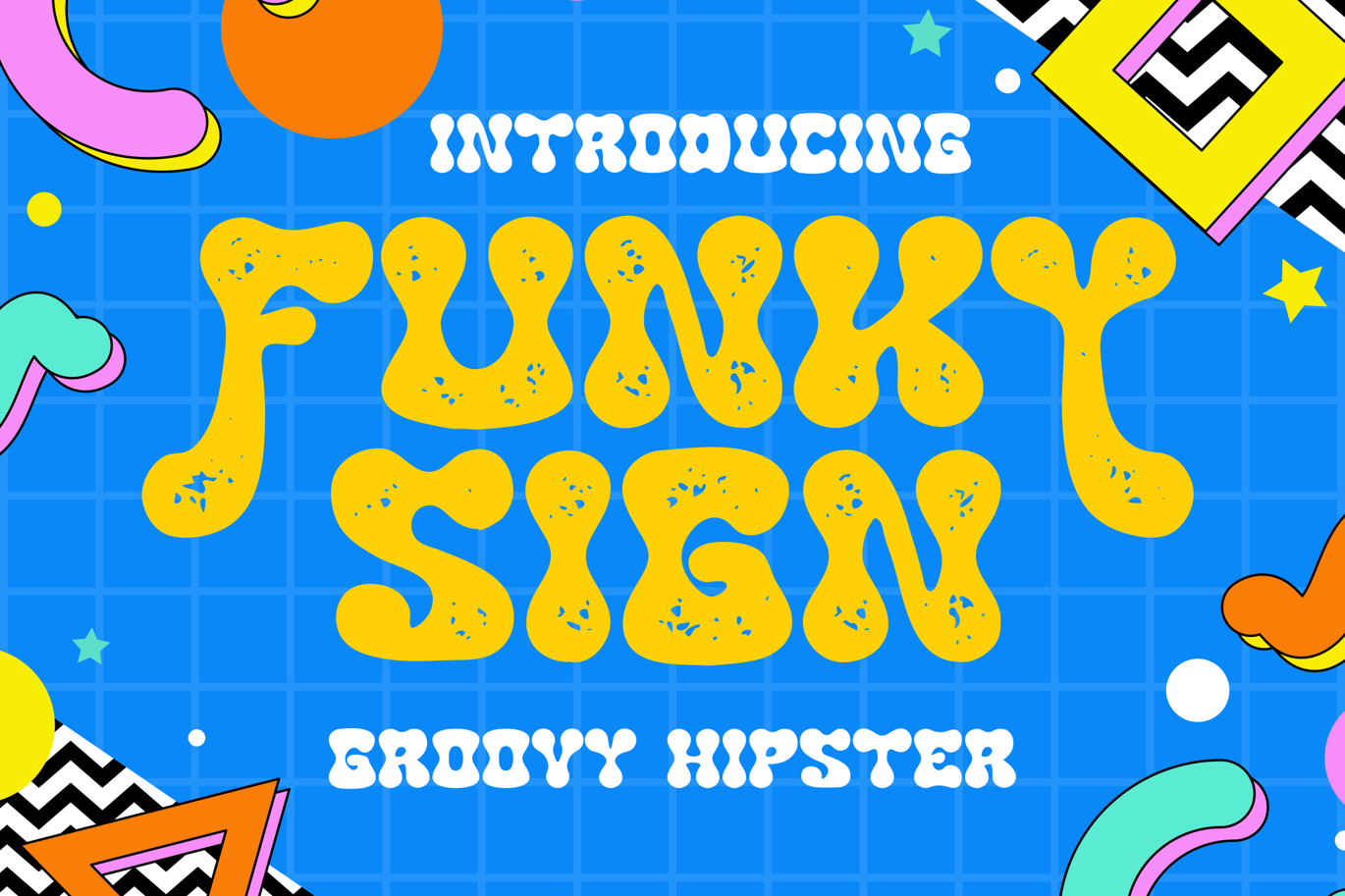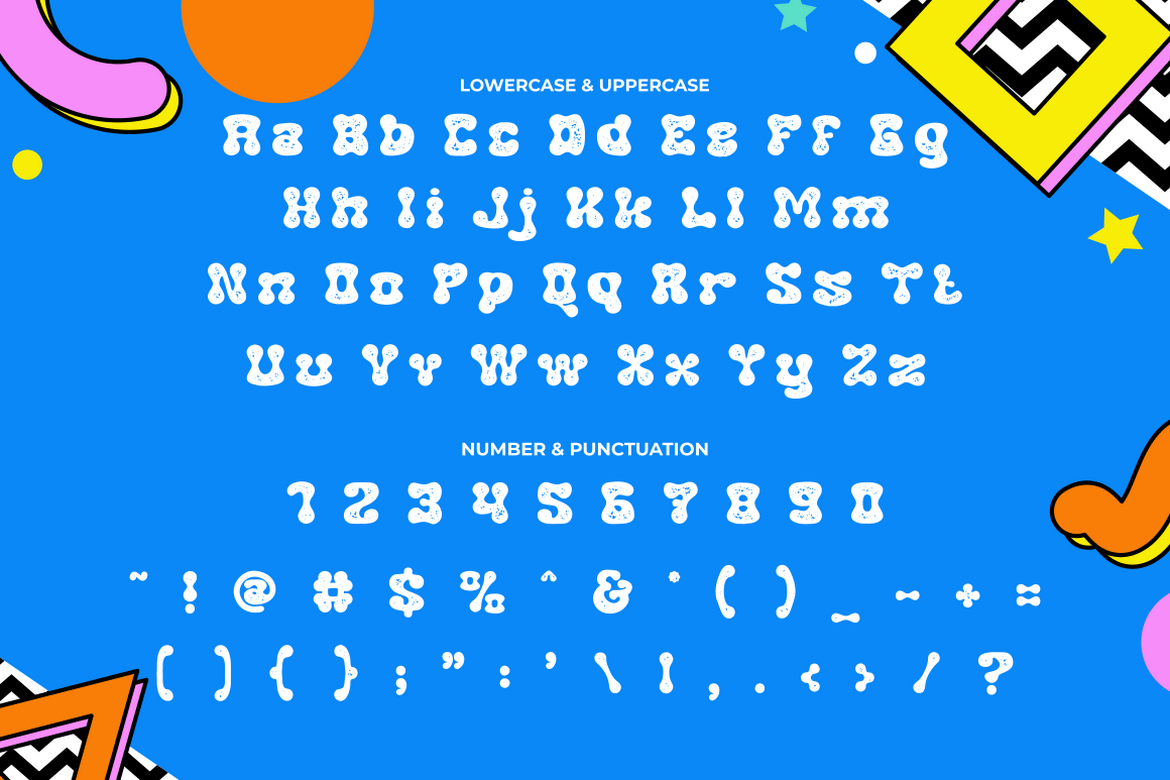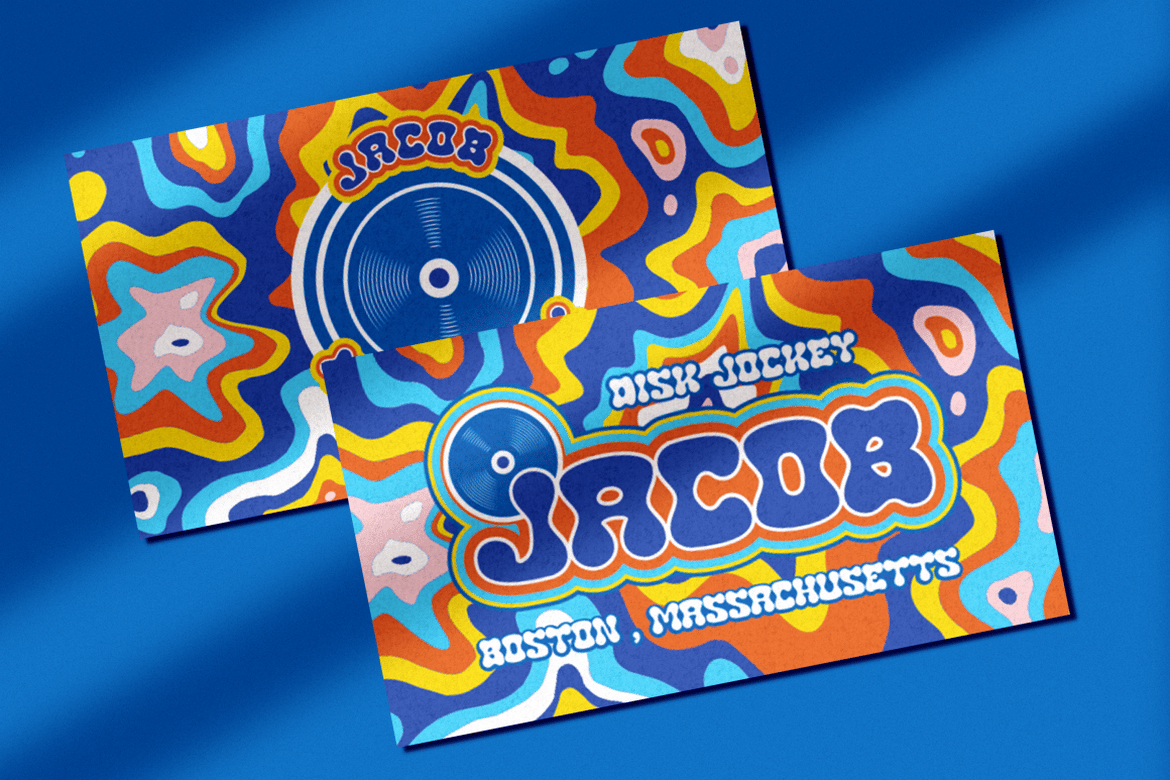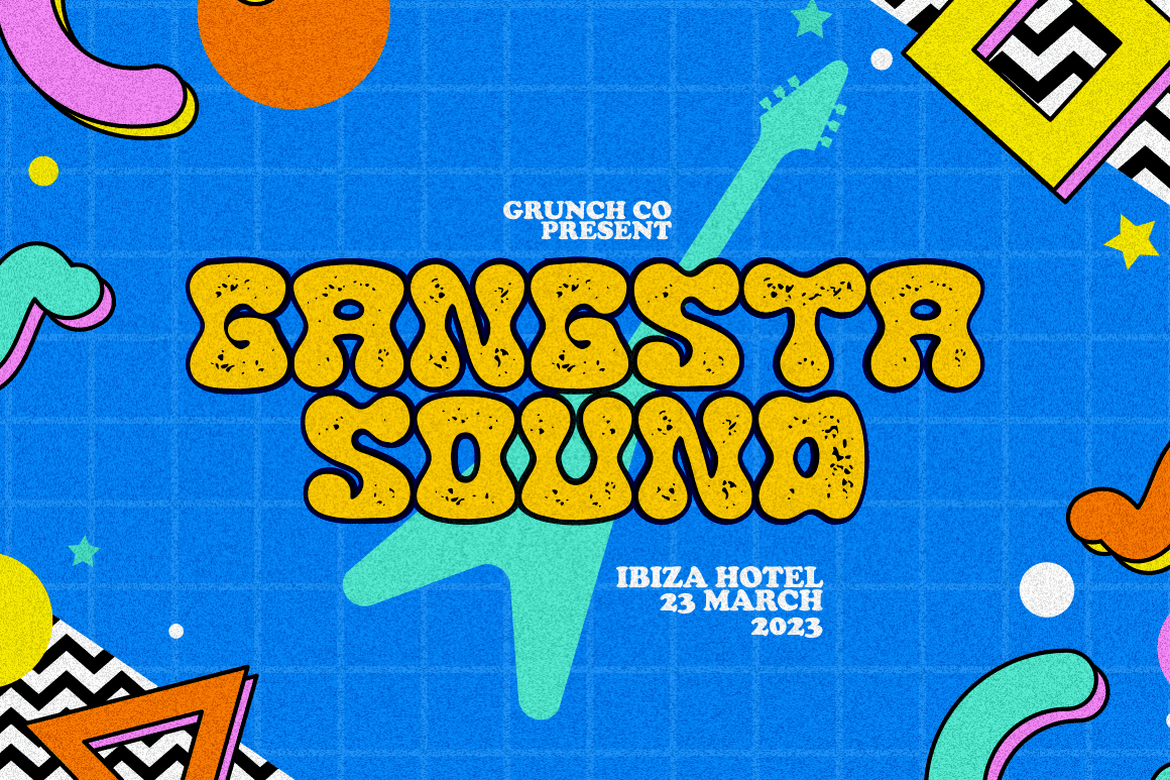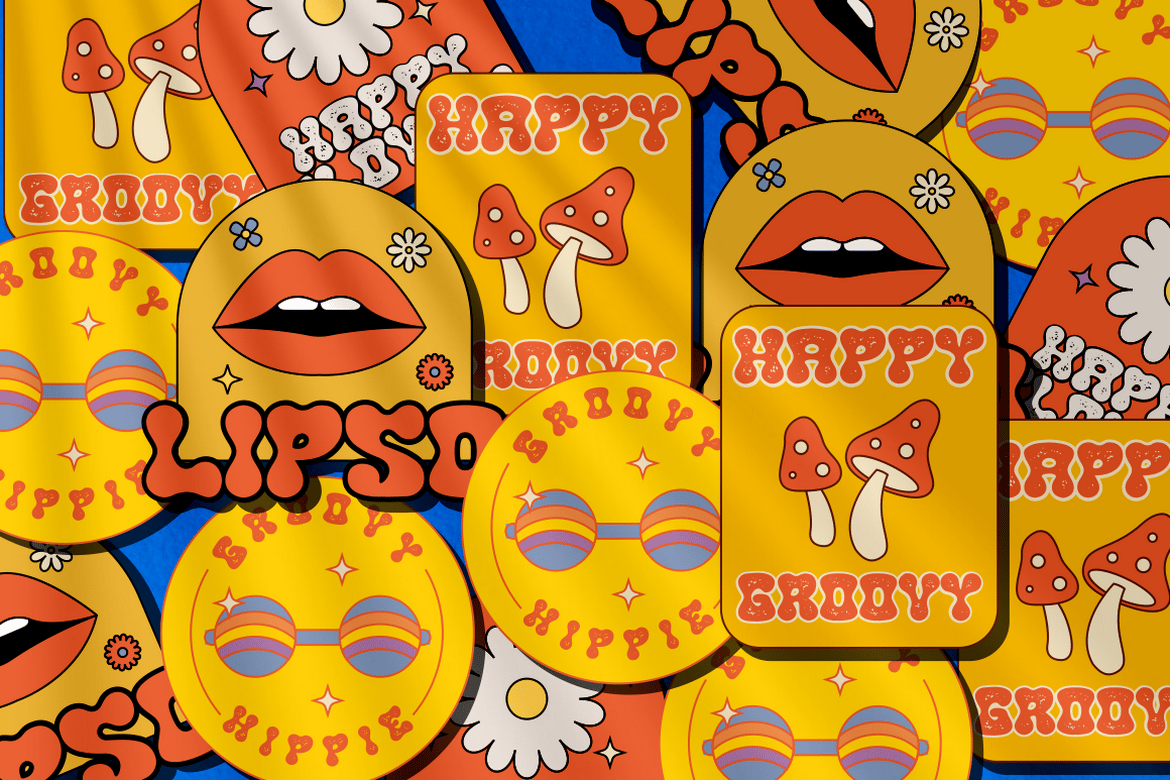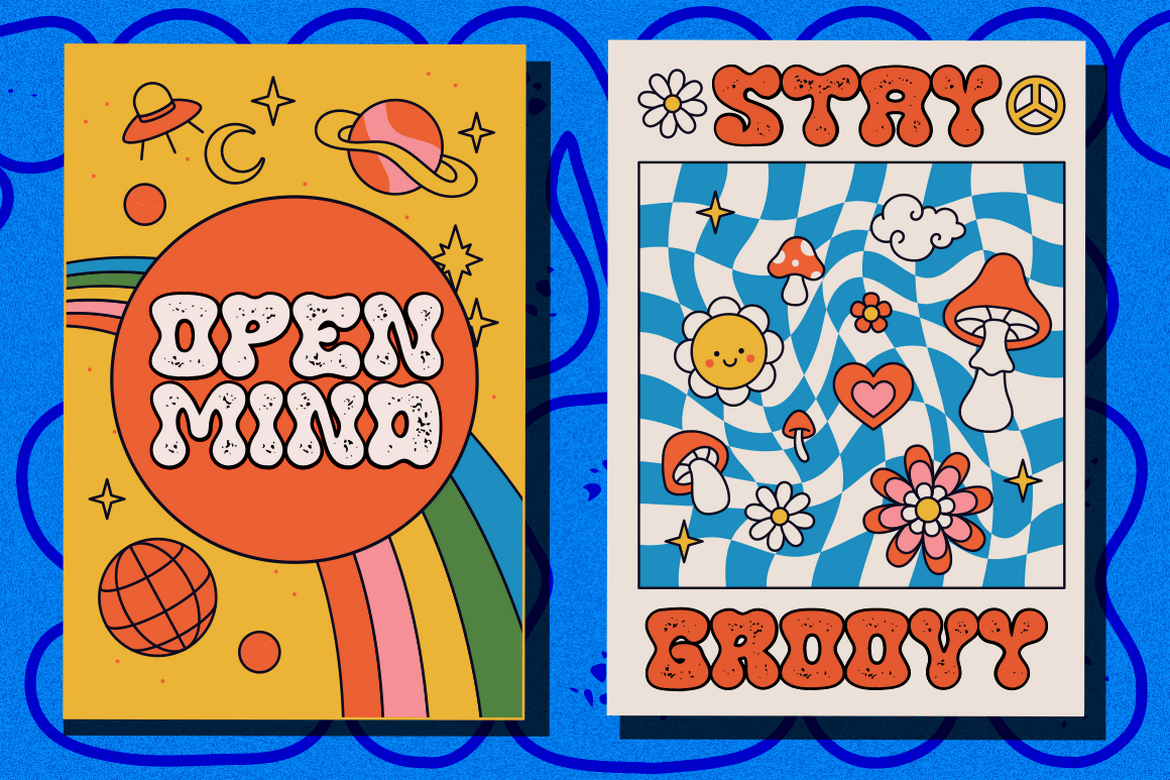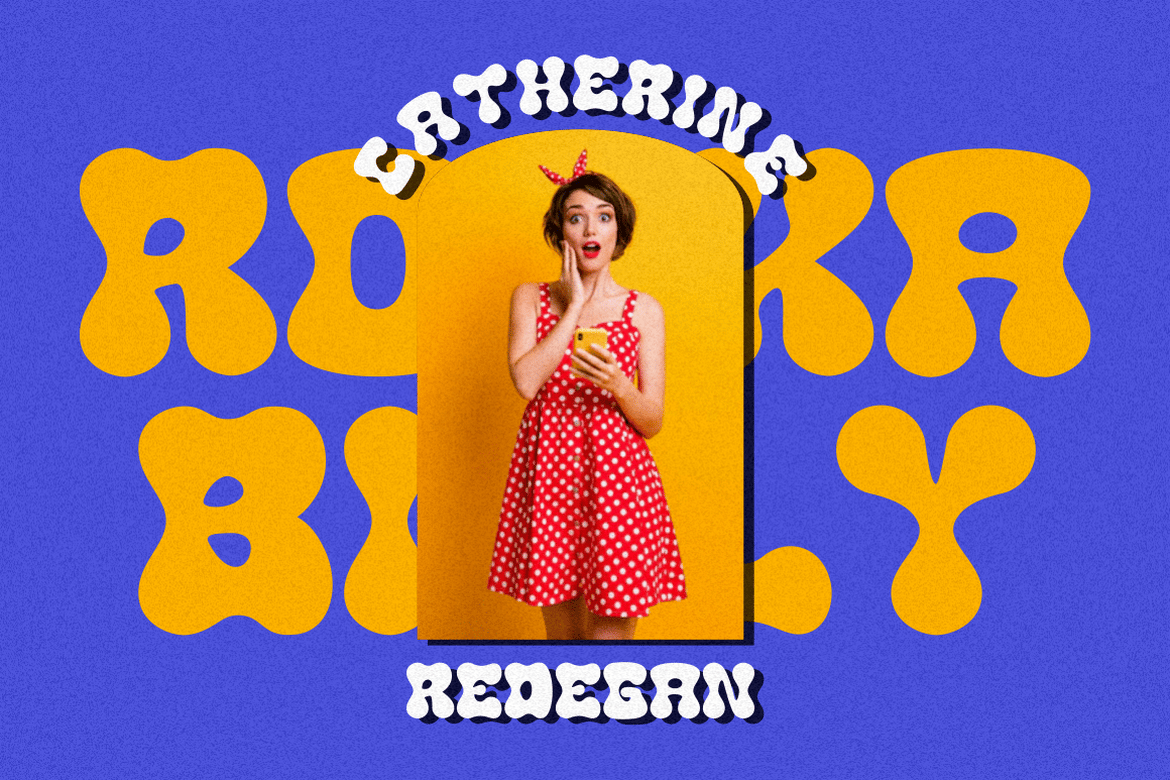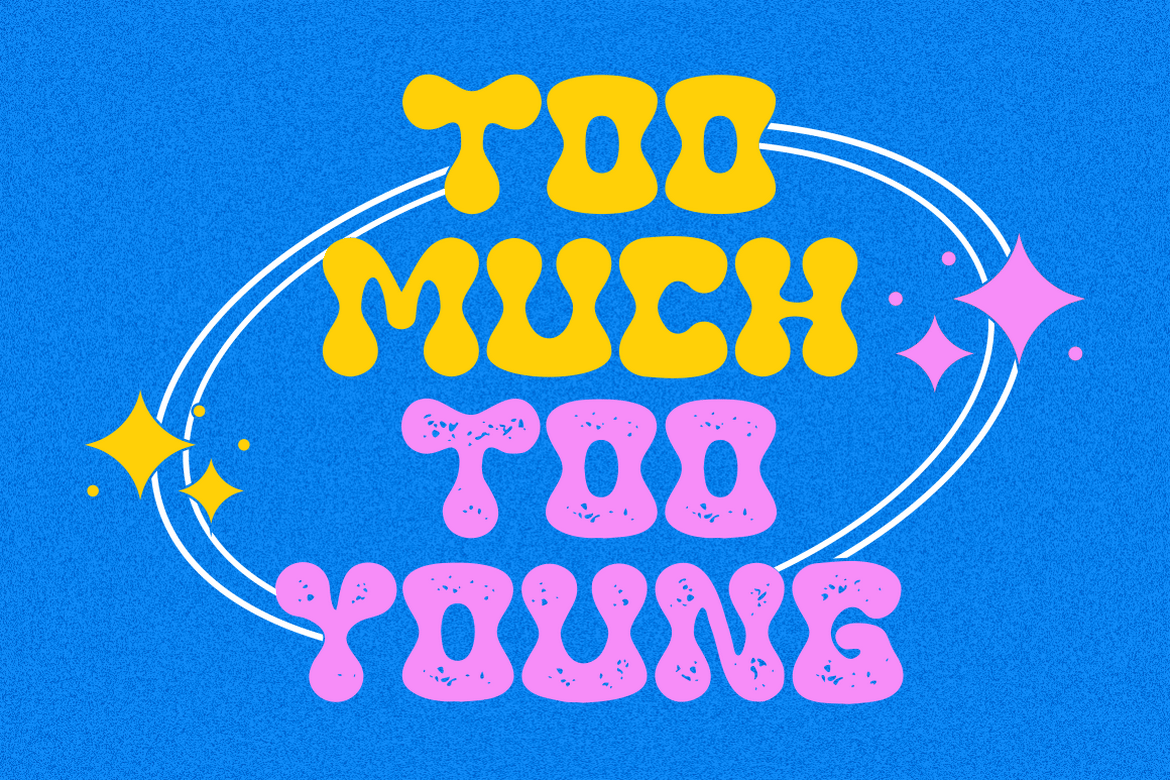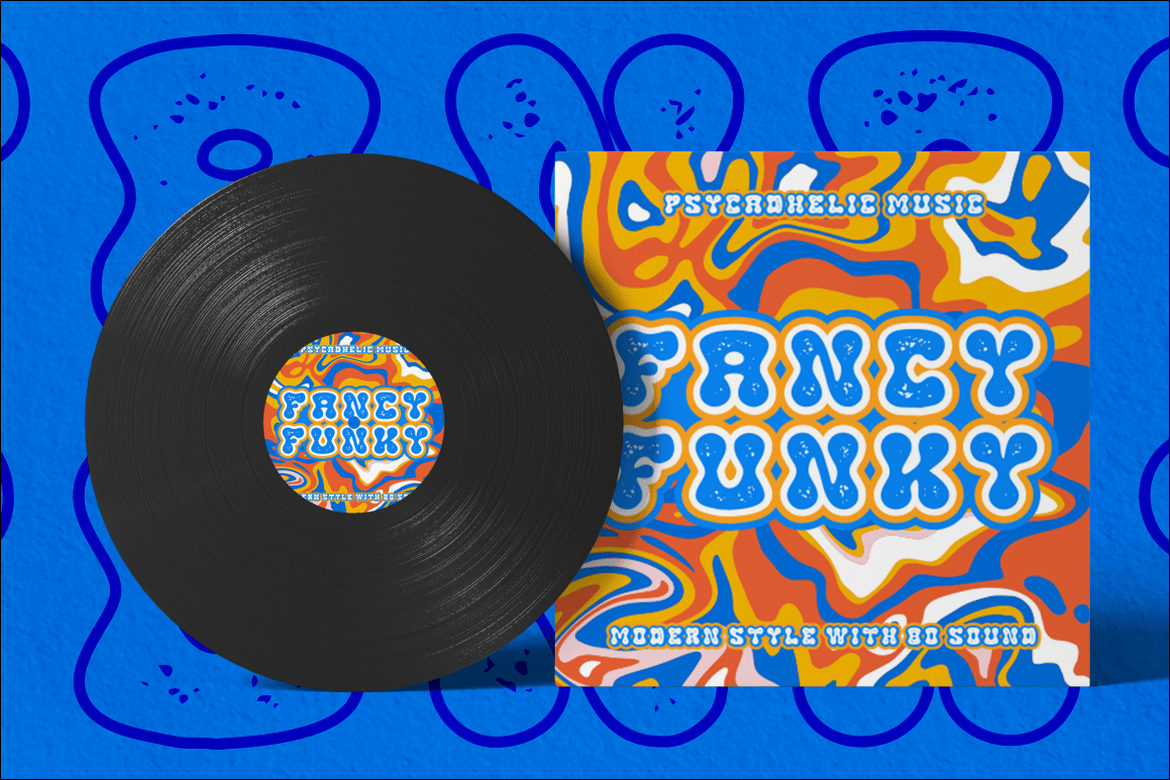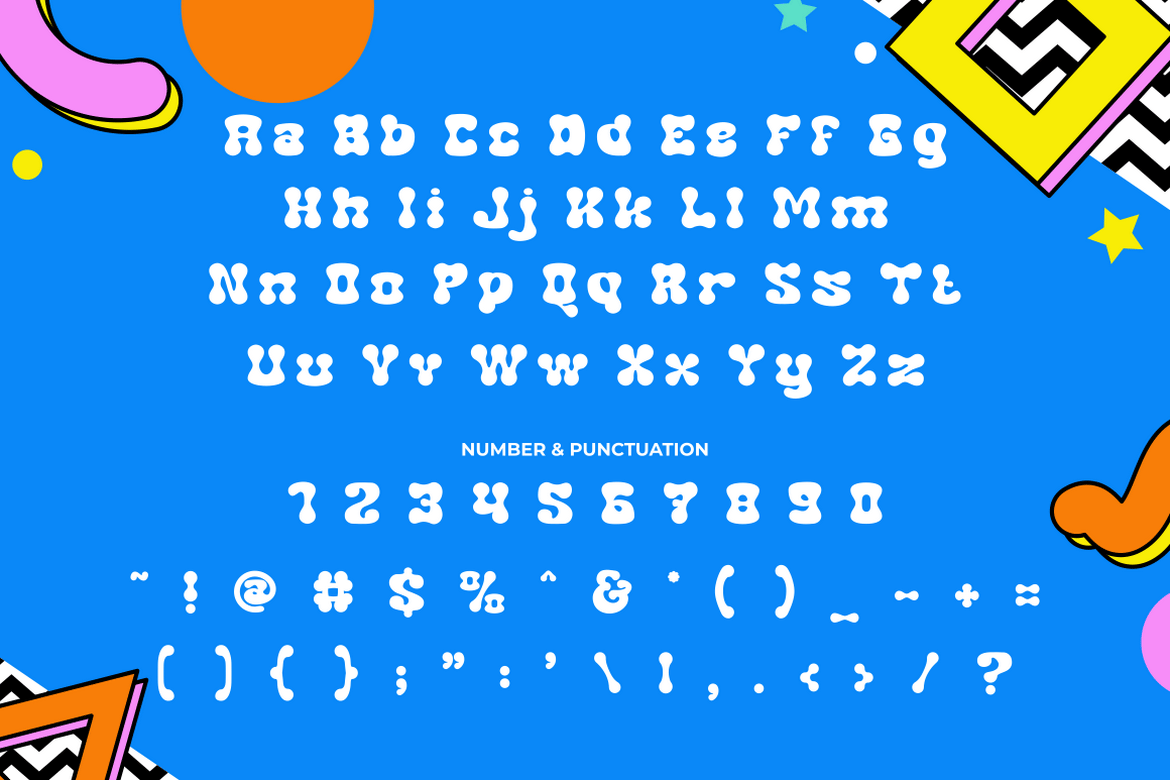
Funky Sign – Groovy Hipster Font
Funky Sign – Groovy Hipster Font is an eye-catching display font that exudes retro charm and groovy vibes. With its pop, fancy, and colorful styles, this font offers a fun and playful typographic solution. It comes in two versions: clean and textured/rough, providing versatility and creative options for various design projects. Funky Sign is the perfect choice for creating captivating posters, logos, landing pages, titles, headlines, stickers, branding materials, cards, and any project with a music or funky theme.
The Funky Sign font stands out with its funky and hipster-inspired style, bringing a sense of nostalgia and vibrancy to your designs. The clean version offers a polished and sleek look, while the textured/rough version adds a touch of authenticity and edginess. Whether you’re designing a poster for a music event, creating a logo for a trendy brand, or crafting a funky landing page, this font will infuse your designs with a unique and dynamic flair.
With Funky Sign – Groovy Hipster Font, you have a versatile and lively typographic tool at your disposal. Its retro and groovy styles, along with the clean and textured versions, offer endless possibilities for designing captivating visuals. Whether you’re working on a music-themed project, creating funky branding materials, or designing eye-catching posters, this font will bring a unique and vibrant touch to your designs, setting them apart with its distinctive and playful appeal.